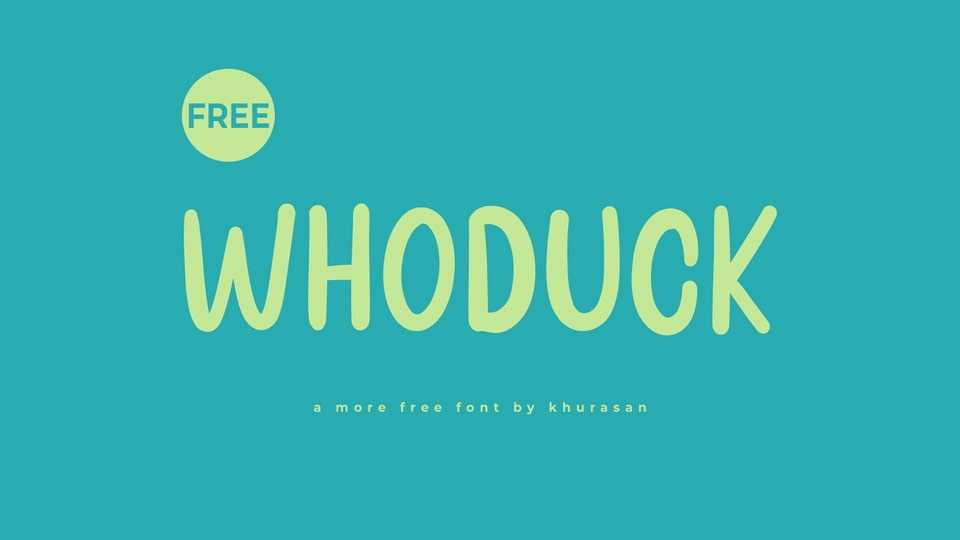
Download Whoduck font, a simple and funny handwritten typeface that brings a touch of simplicity and charm to your designs. Whoduck font is crafted with playful imperfections and whimsical details, capturing the spontaneous spirit of comic book lettering.